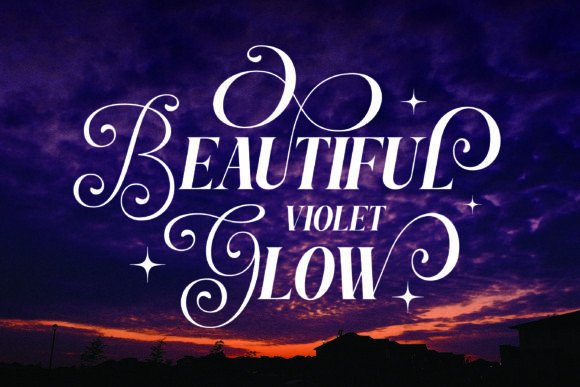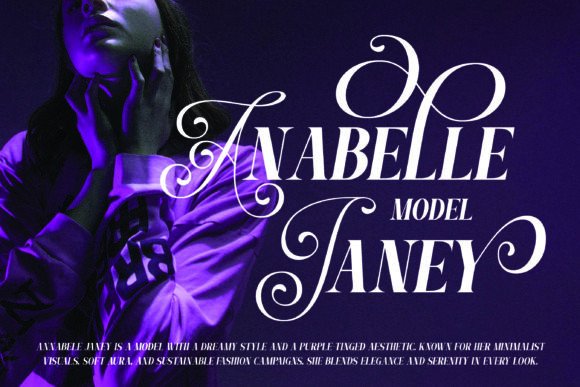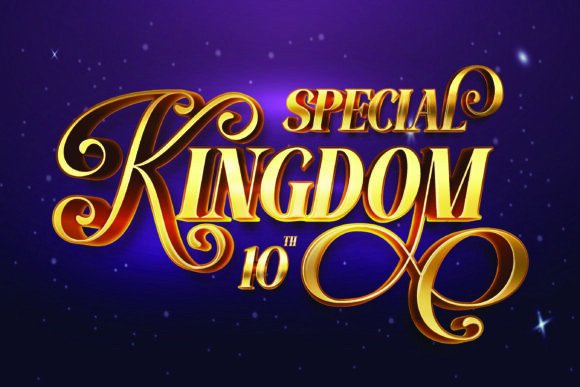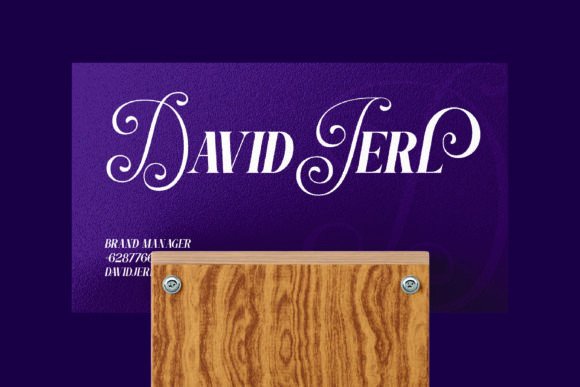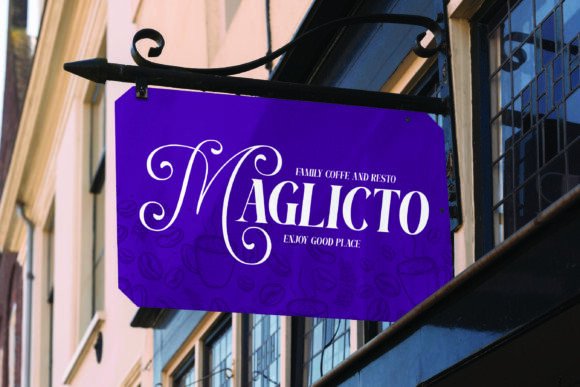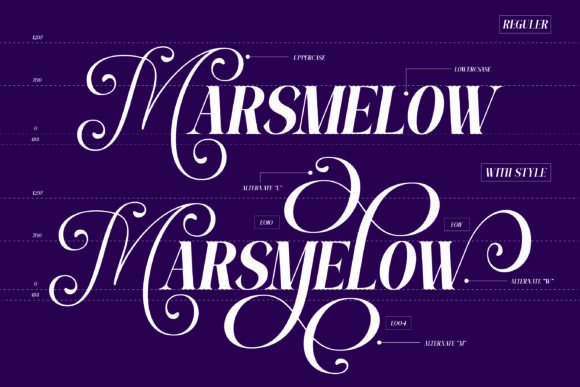
Introducing Funcy Font: Elevate Your Designs with Elegance and Charm
In the world of typography, a font can make or break the aesthetic of a design. For creative professionals and crafters looking to add a touch of sophistication and personality to their projects, the Funcy font is an exceptional choice. This decorative serif font is designed to bring charm, elegance, and a modern edge to a variety of applications, from branding and packaging to invitations and signage.
The Essence of Funcy Font
Funcy is more than just a typeface; it’s an experience. With its graceful swashes, ornamental details, and bold letterforms, it perfectly blends classic beauty with modern refinement. This balance makes Funcy versatile and suitable for a wide range of creative projects. Whether you’re designing a logo, crafting an invitation, or developing a brand identity, Funcy provides the elegance and flair needed to make your work stand out.
Key Features of Funcy Font
• Sophisticated Design: Funcy boasts a sophisticated decorative serif design that adds an element of elegance to any project.
• PUA Encoding: The font is PUA-encoded, offering effortless access to all glyphs, swashes, and alternate characters. This feature makes customization easy and allows for a high degree of creativity and flexibility in your designs.
• Versatility: From headlines and branding to packaging, invitations, logos, and signage, Funcy’s versatility shines through in its wide range of applications.
• Easy Customization: With its comprehensive set of glyphs, swashes, and alternates, customizing your text is straightforward, allowing you to create unique and personalized designs.
Applications of Funcy Font
The applications of Funcy font are vast and varied. Here are a few ideas to get you started:
• Branding and Logos: Create a memorable brand identity with a logo that stands out. Funcy’s unique and elegant design makes it perfect for businesses looking to establish a sophisticated image.
• Invitations and Stationery: Add a touch of elegance to your invitations, greeting cards, and stationery. Funcy’s ornamental details and swashes bring a level of sophistication that’s sure to impress.
• Packaging: Make your product packaging stand out on the shelves with Funcy’s bold and decorative letterforms. This can be particularly effective for luxury goods, cosmetics, and high-end products.
• Signage: Whether you’re designing a sign for a boutique, a restaurant, or a business, Funcy provides the charm and visibility needed to attract attention.
Why Choose Funcy Font?
In a sea of typefaces, Funcy stands out for several reasons:
• Unique Aesthetic: Funcy offers a distinct look that can elevate your designs and set them apart from the more common and generic fonts.
• High Readability: Despite its decorative nature, Funcy maintains high readability, making it suitable for both headlines and body text.
• Support for Creative Freedom: With its PUA encoding and extensive character set, Funcy supports a high level of creative freedom, allowing designers to experiment and innovate.
Funcy font is a powerful tool for designers and crafters looking to infuse their projects with elegance, charm, and personality. Its sophisticated design, combined with its versatility and ease of use, makes it an excellent choice for a wide range of applications. Whether you’re working on a branding project, creating custom invitations, or designing signage, Funcy provides the perfect blend of classic beauty and modern refinement. Explore the possibilities with Funcy font and discover how it can elevate your creative projects to new heights.